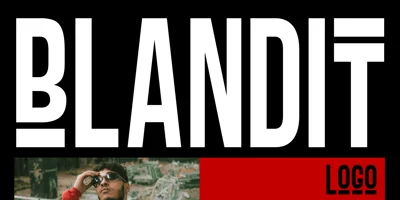
Blandit Font
Blandit Font is perfect for modern web interfaces, corporate presentations, technical documentation, software applications, digital dashboards, professional reports, mobile app designs, user interface elements, clean branding projects, and minimalist poster designs. Its versatile character makes it ideal for projects requiring clarity, functionality, and contemporary appeal.
What makes Blandit Font exciting is its exceptional balance of simplicity and sophistication. The font features clean geometric forms with optimized spacing that enhance readability across all screen sizes and print formats. Its neutral yet distinctive character ensures maximum legibility while adding subtle personality to any design, making it perfect for both body text and headline applications.
The Blandit Font family includes Regular, Bold, Light, Medium, Semi-Bold, Italic, and Condensed variations. Each style maintains the font's clean aesthetic while offering different weights for hierarchical typography and design flexibility. The comprehensive character set supports multiple languages and includes technical symbols, making it suitable for international and specialized applications.
Designers and developers consistently choose Blandit Font for projects demanding reliable typography solutions. The font's clean architecture eliminates visual distractions, allowing content to communicate effectively while maintaining professional appearance. Its technical excellence includes proper hinting, optimized kerning, and comprehensive OpenType features.
Whether you're developing user interfaces, creating corporate materials, or designing digital publications, Blandit Font delivers consistent performance across all platforms. The font's scalable design ensures crisp rendering at any size, from small mobile text to large display applications, making it ideal for responsive design requirements.
The practical versatility of Blandit Font extends seamlessly from traditional print media to cutting-edge digital applications. Its neutral character makes it an excellent choice for long-form reading while its distinctive personality prevents monotony in extended text blocks. The font performs exceptionally well in both dark and light interface themes.
Transform your projects with Blandit Font and experience how clean, functional typography can enhance user experience and communication effectiveness. This remarkable typeface combines Swiss design principles with contemporary digital requirements, making it essential for modern design workflows.